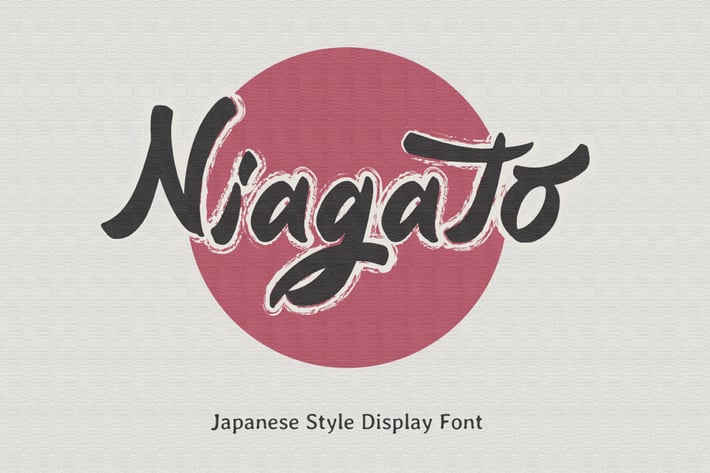
Niagato - Japanese Display Font
Niagato is Font that inspired by chinese letter style, perfect for any Asian theme of design & promotion to create spectacular designs!
Niagato is perfect for branding, logo, invitation, stationery, social media post, product packaging, merchandise,
blog design, game titles, cute style design, Book/Cover Title and more.